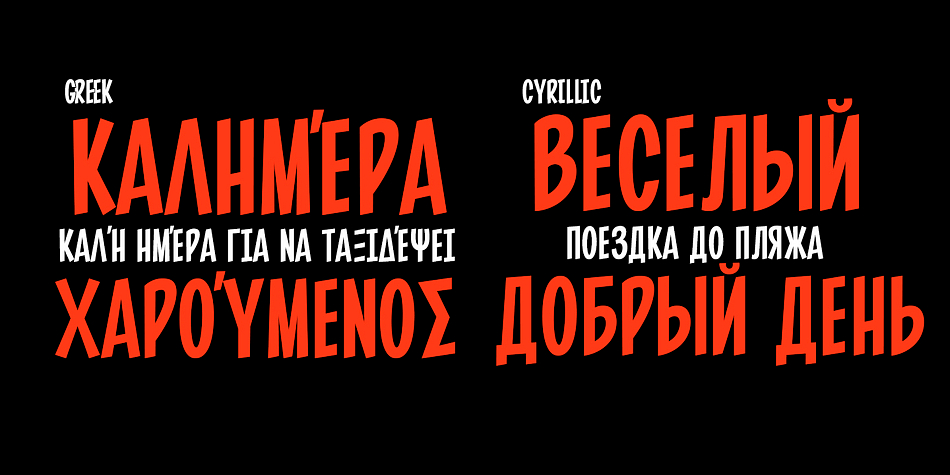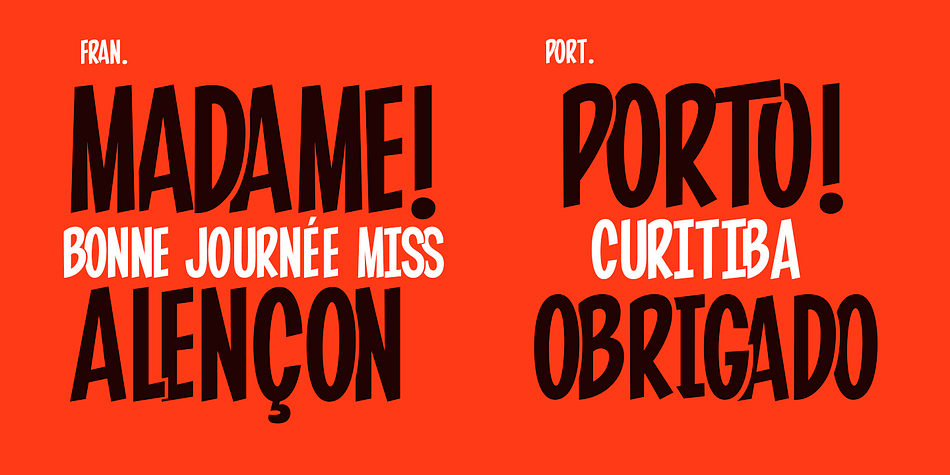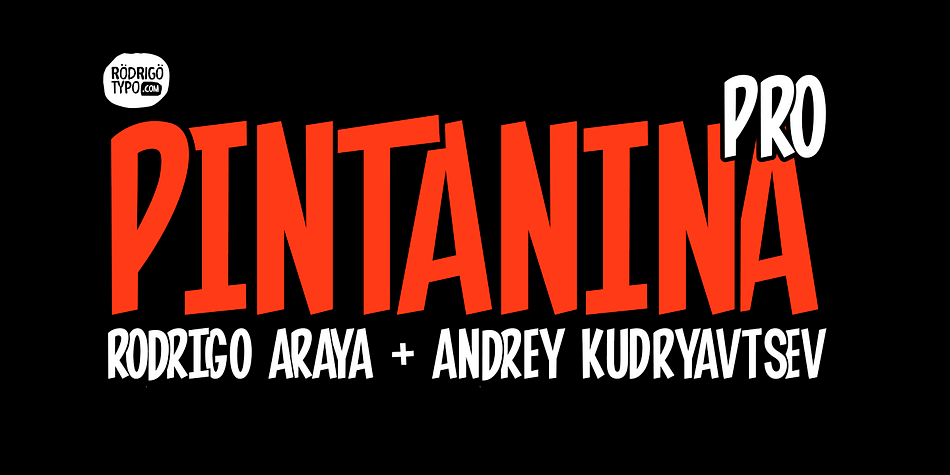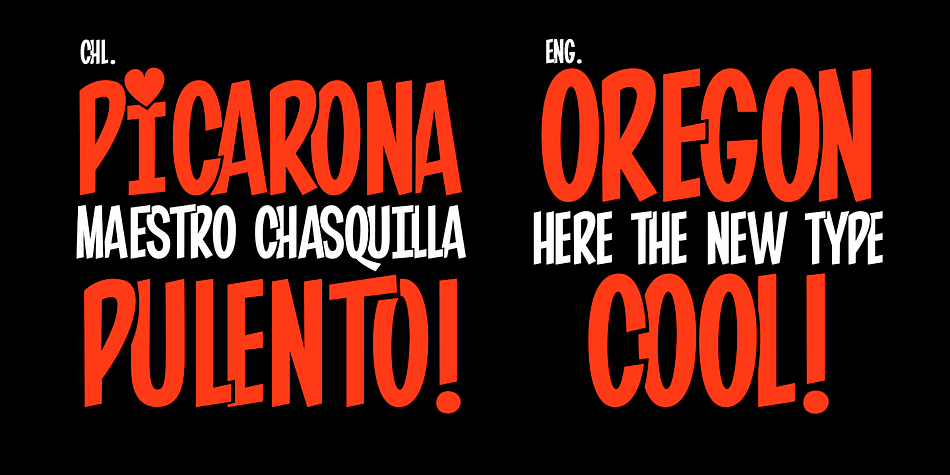
Designed by Rodrigo Araya Salas and Andrey Kudryavtsev, Pintanina Pro is a comic, dingbat and display sans font family. This typeface has two styles and was published by Rodrigo Typo.
Pintanina Pro is a redesigned version of Pintanina which was first published in 2013. This font has many improved details and contains more ligatures.
The original inspiration came from the great Latin American comic character Condorito, and resulted in a tall and thin typeface.